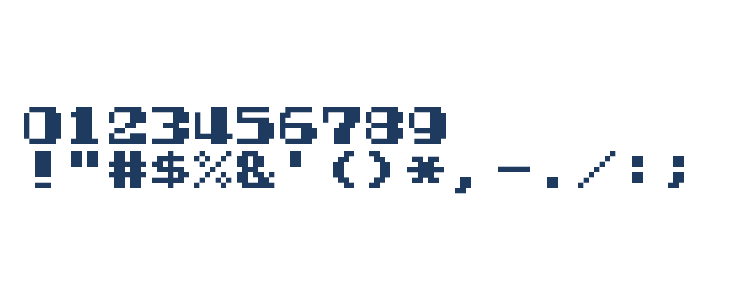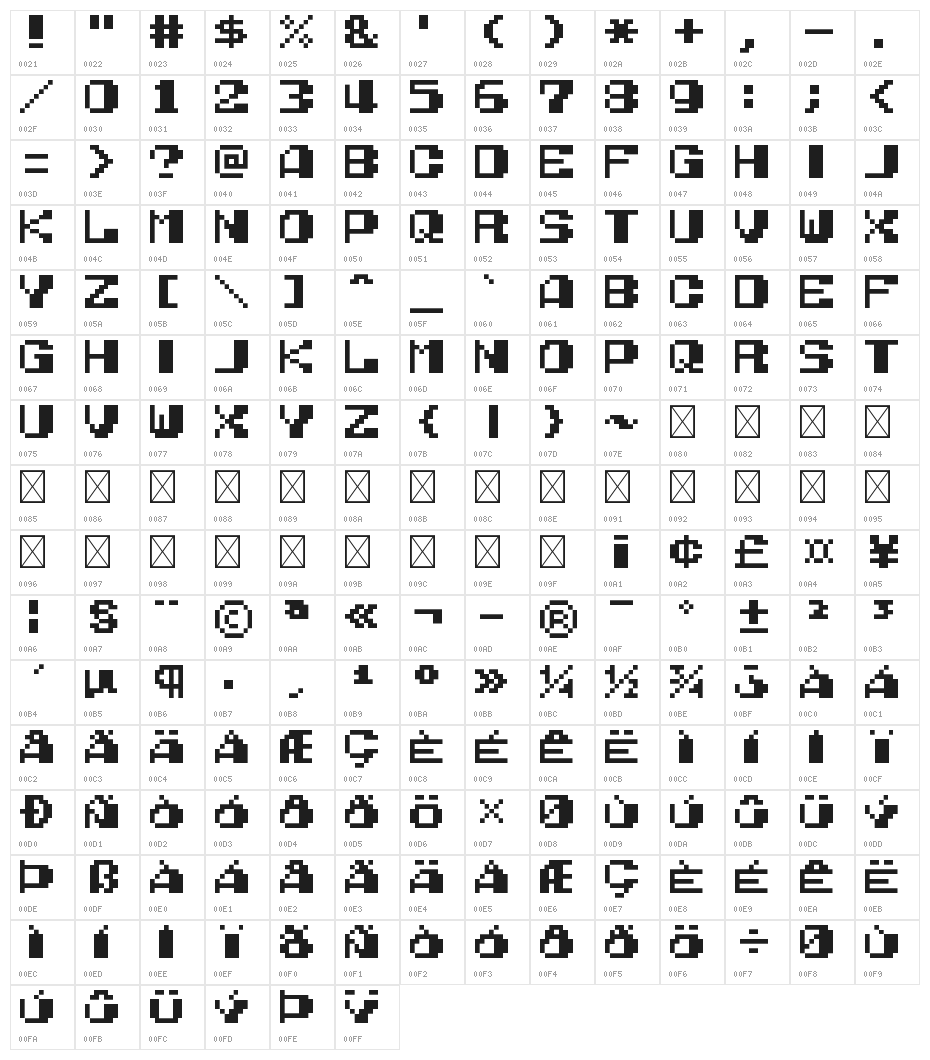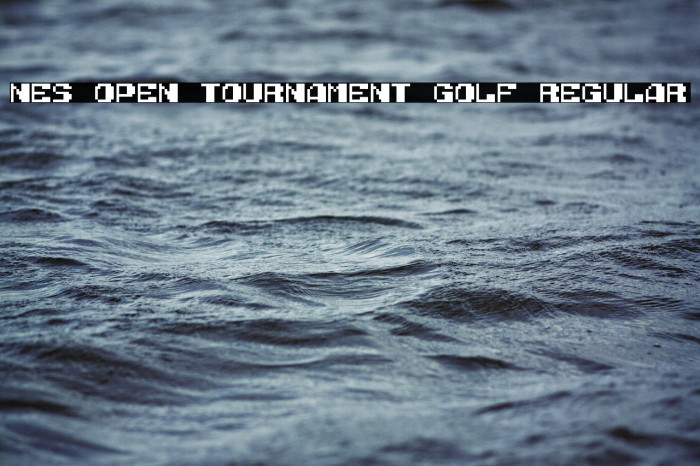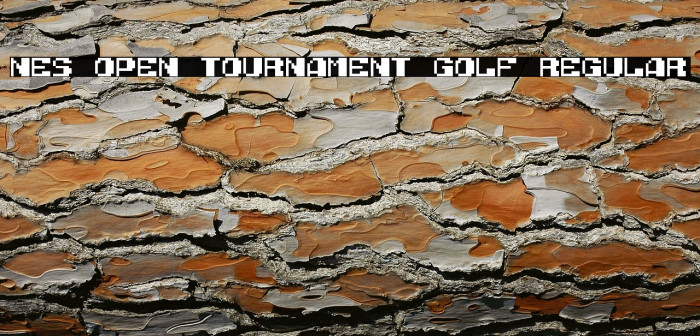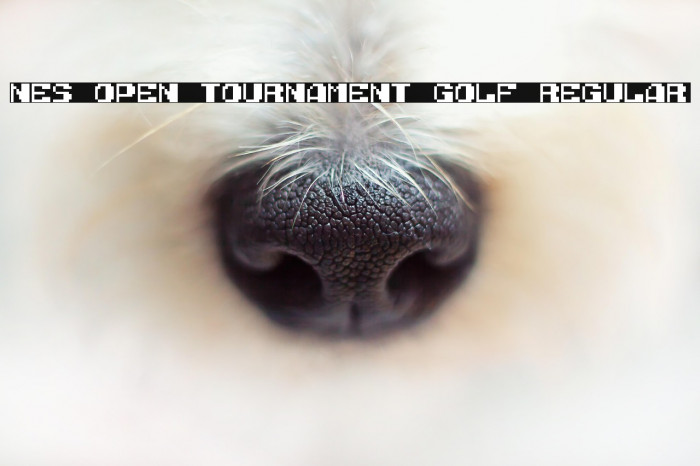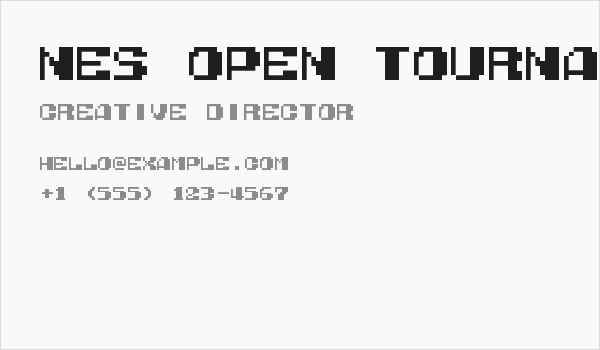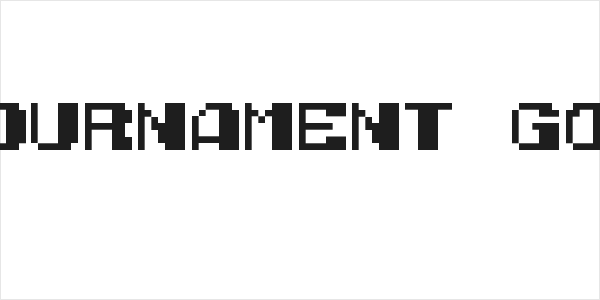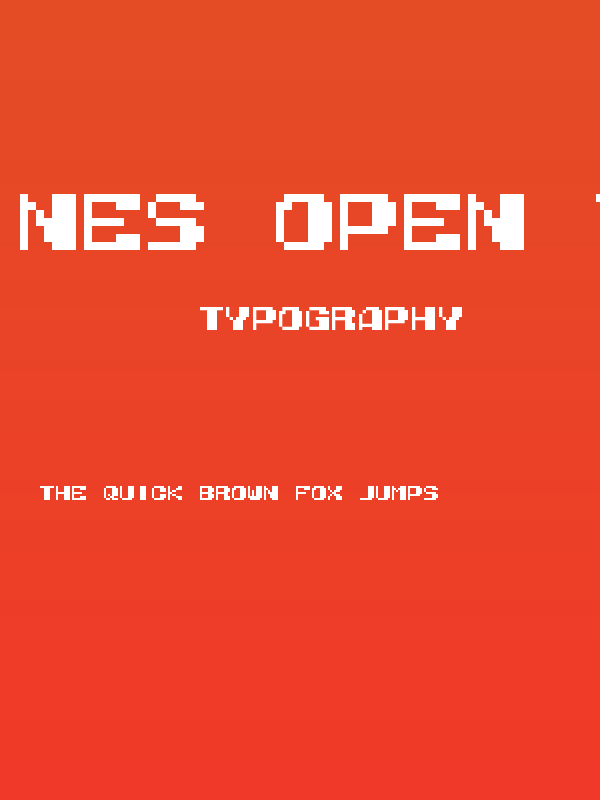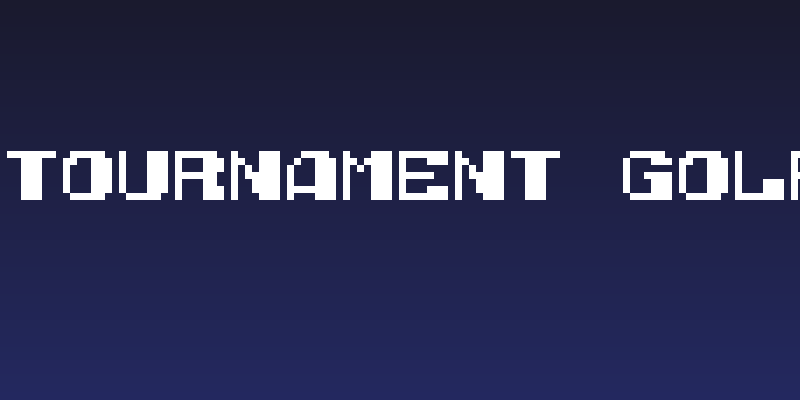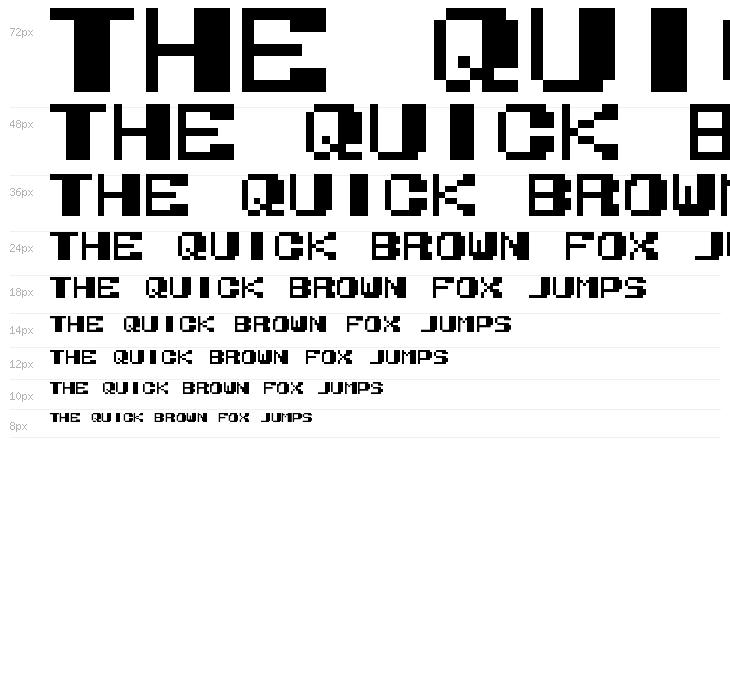
NES Open Tournament Golf Regular Font
NES Open Tournament Golf Regular Description
This font features a blocky, pixelated style reminiscent of classic 8-bit video games. The characters are bold and geometric, with a uniform thickness that gives it a strong, impactful presence. The uppercase and lowercase letters maintain a consistent height, contributing to a cohesive look. The numbers and special characters follow the same design principles, ensuring readability and visual harmony. Its retro aesthetic makes it ideal for projects that aim to evoke nostalgia or pay homage to vintage gaming culture.
| Proposed Projects | Ideal for retro-themed designs, video game graphics, posters, and digital art projects. |